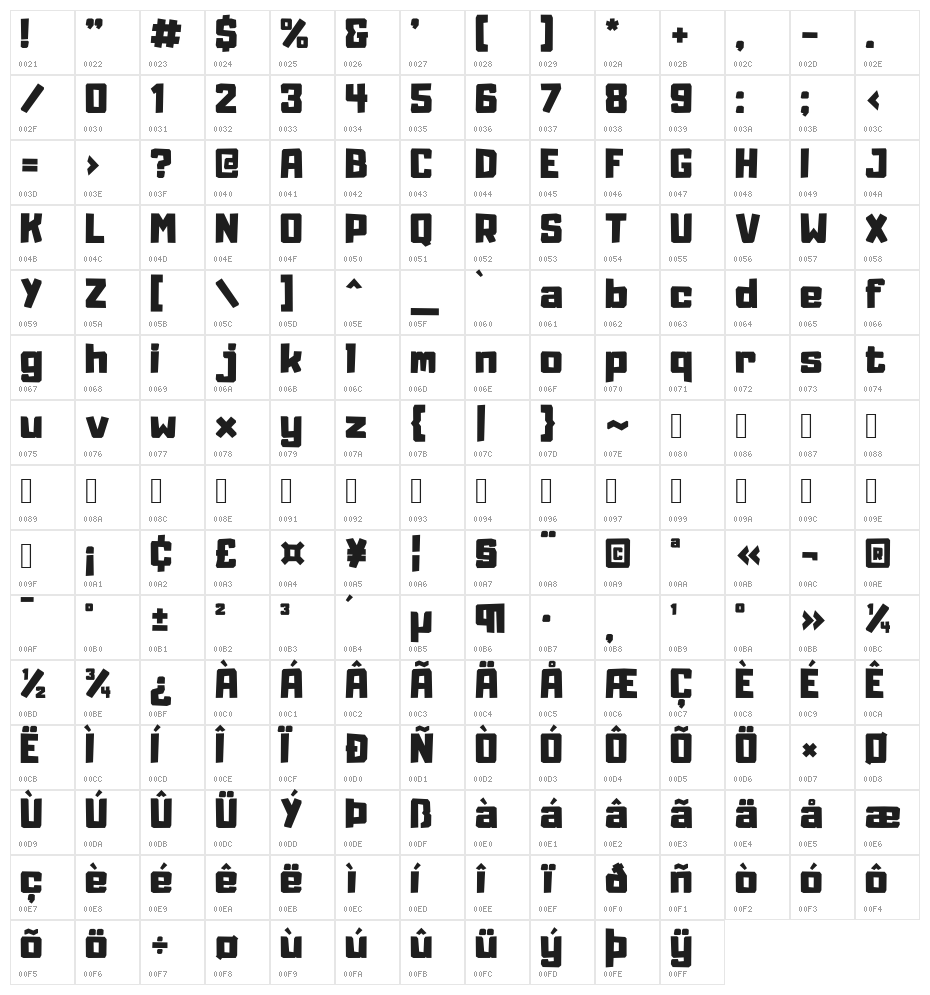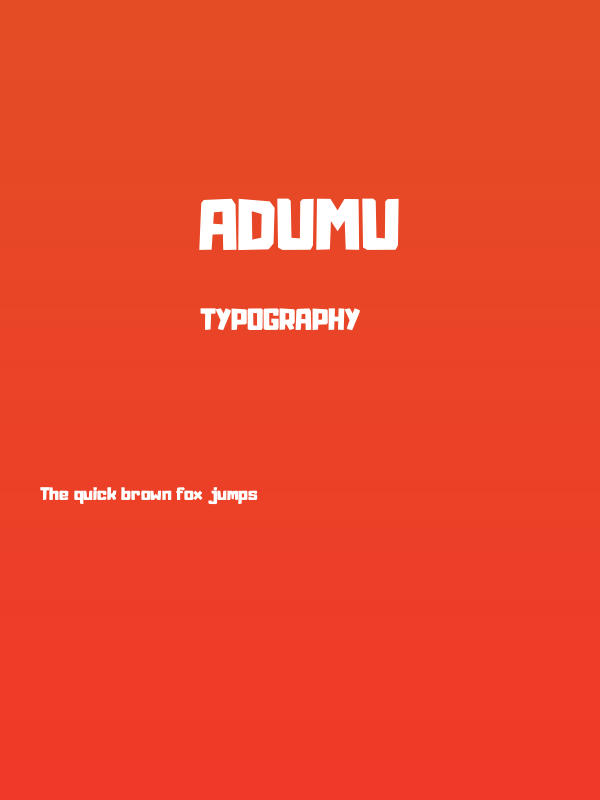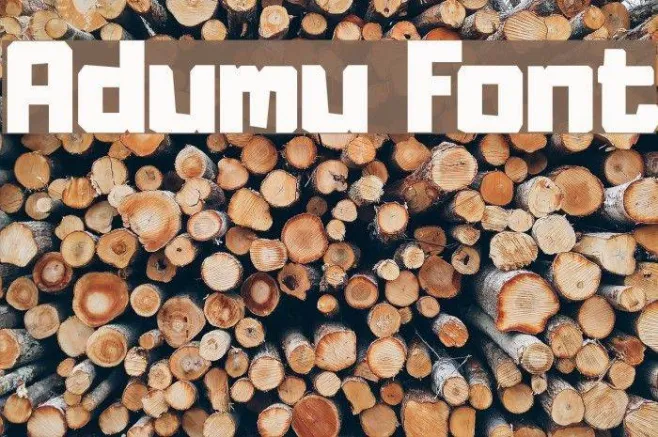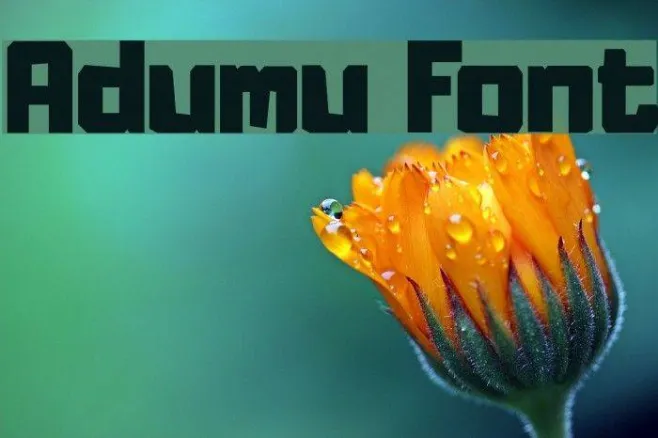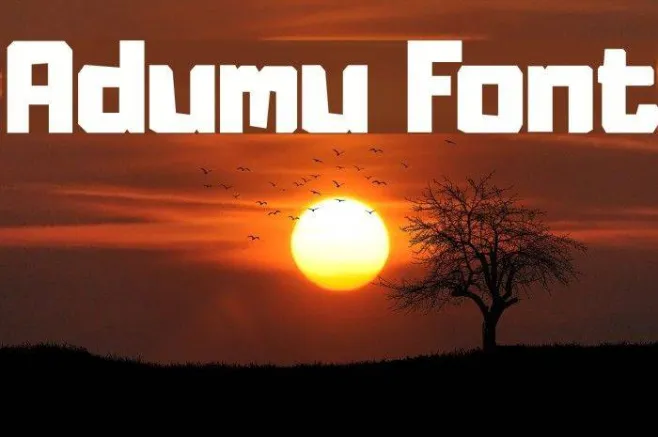
Adumu Font
Adumu Description
This bold and striking font features a strong geometric design with thick, blocky characters that command attention. The uppercase and lowercase letters maintain a consistent width, creating a uniform appearance. The numbers and special characters follow the same bold style, ensuring cohesion across all text elements. The font's angular edges and solid structure give it a modern and impactful look, making it suitable for projects that require a strong visual presence.
| Proposed Projects | Ideal for posters, headlines, branding, and any design needing a bold statement. |